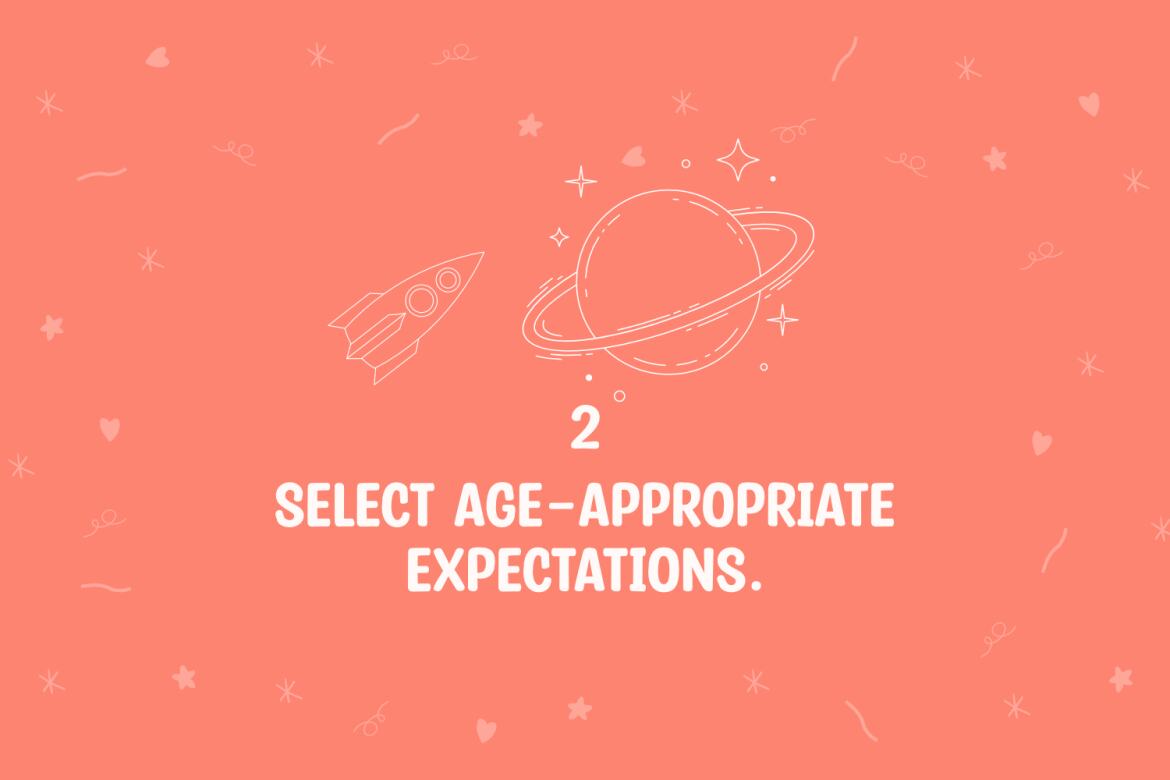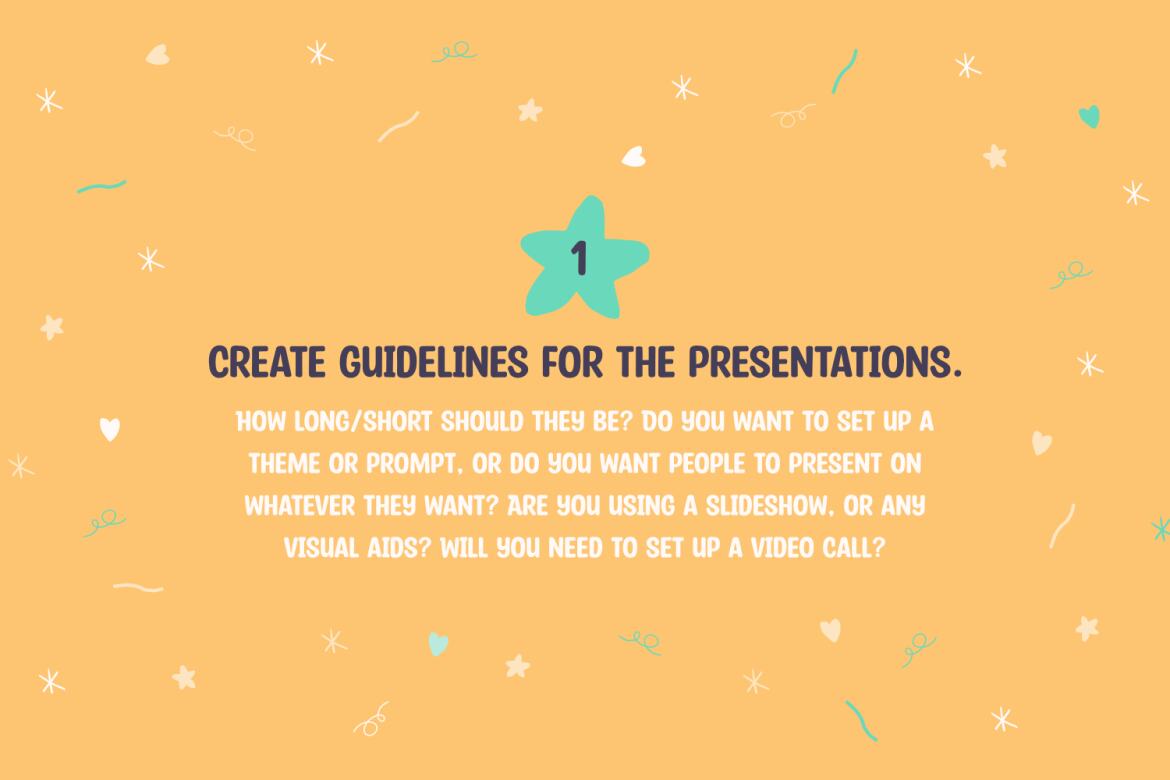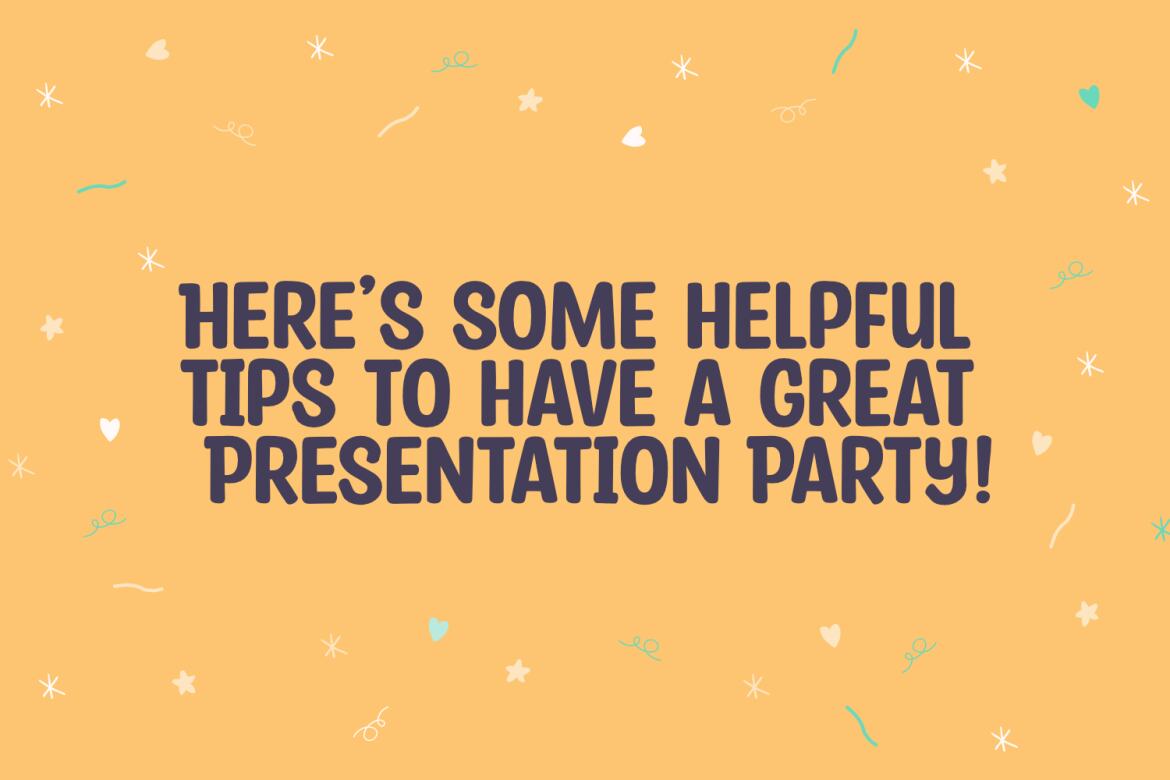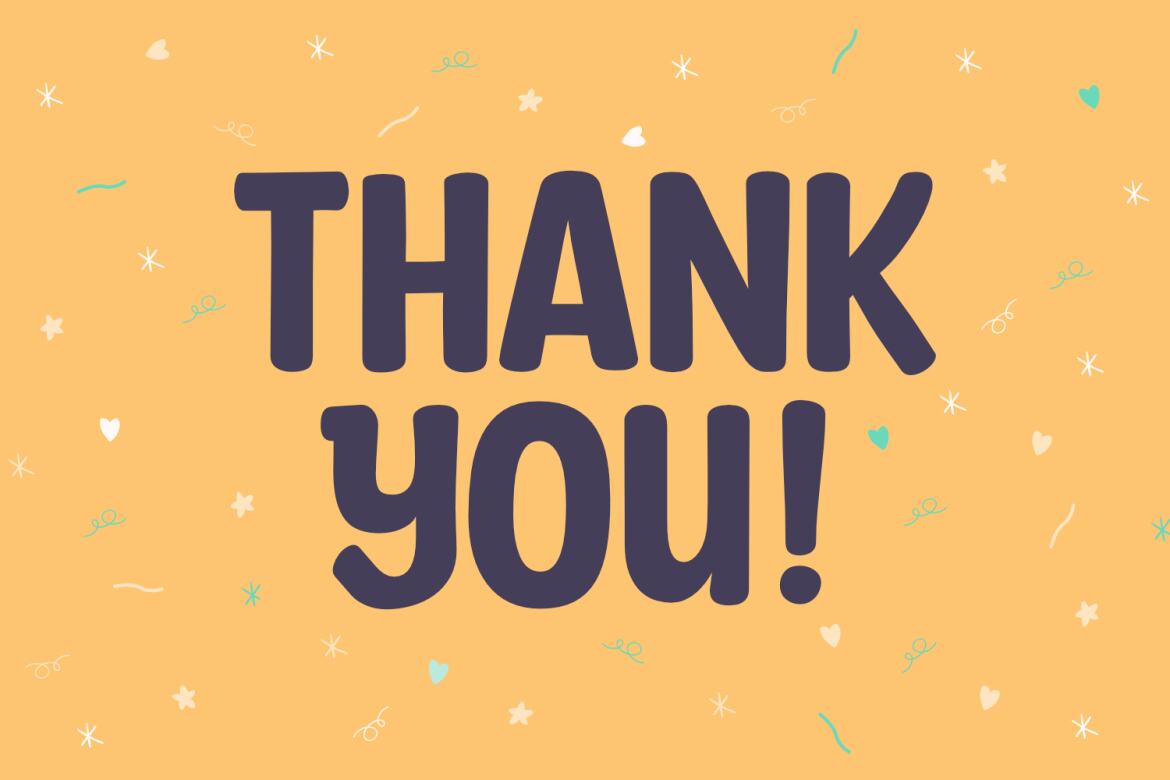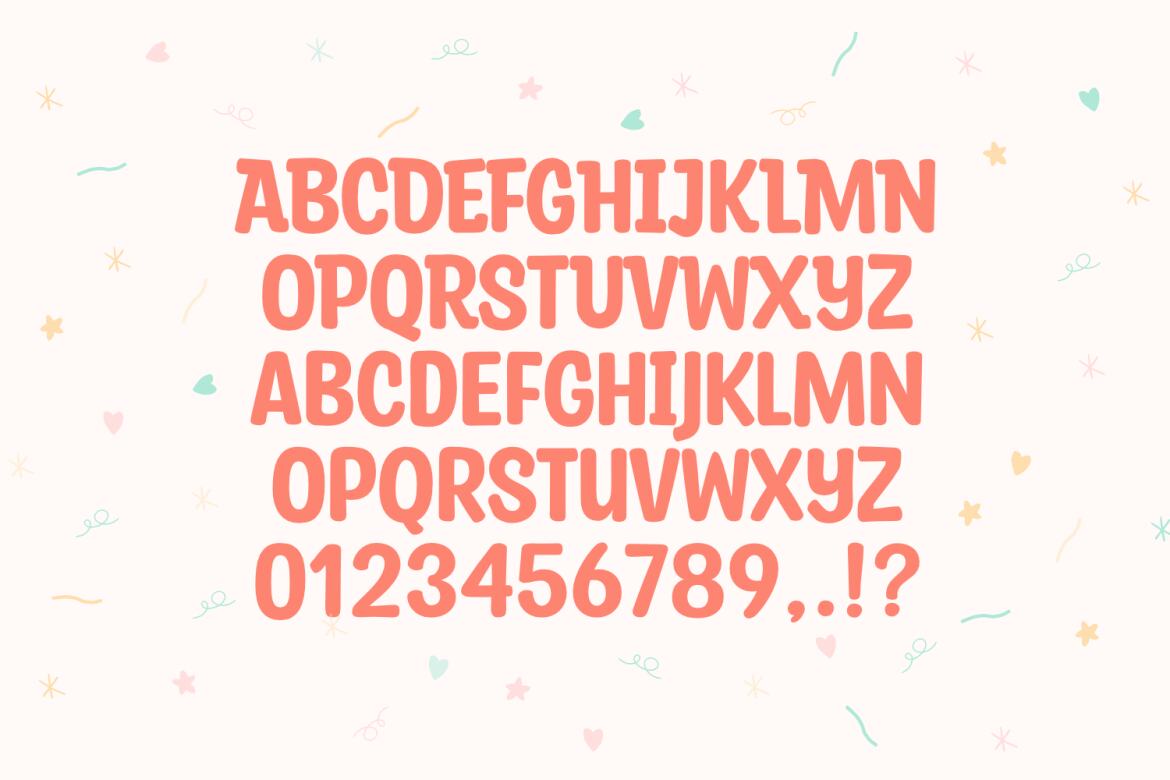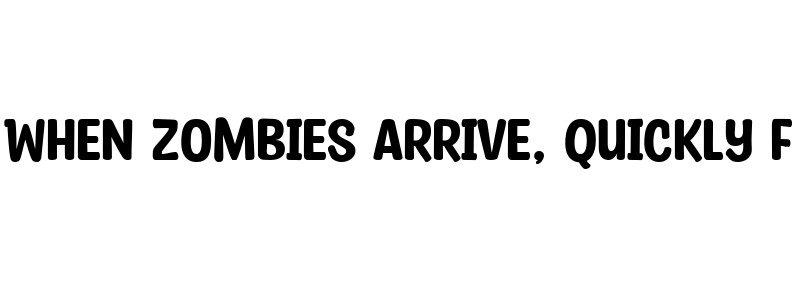
Party Confetti - FREE Font
Party Confetti is a strong bold font. This font is perfect for headlines, logos, crafting, flyers, branding and posters. It has a beautiful and simple style that will take your designs to the next level!